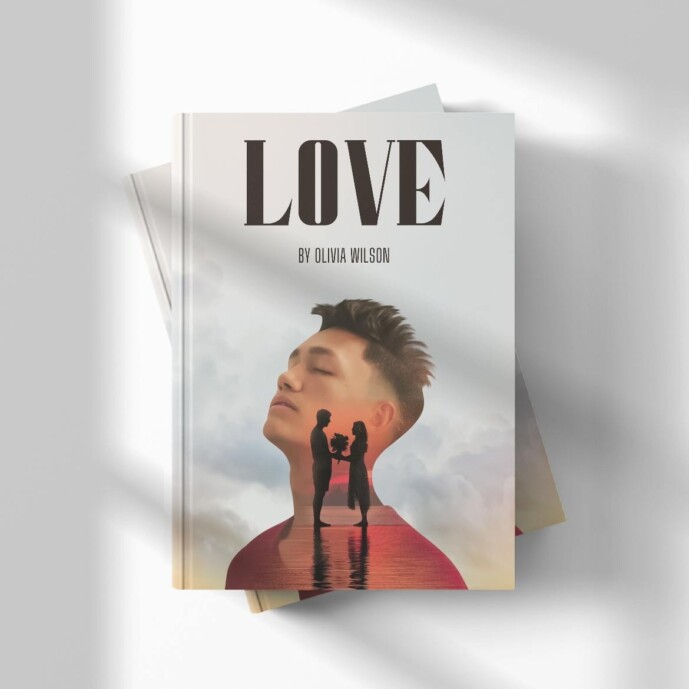
Moonlight Serif Font
Designer: overlaytemplate
Moonlight Serif Font a refined and contemporary serif font that brings a touch of elegance and sophistication to your design projects. Ideal for branding, editorial design, invitations, and more, “Moonlight” shines with its timeless beauty and modern style.
“Moonlight” features meticulously crafted serifs with a perfect balance of classic and contemporary elements. Its clean lines and graceful curves give it a refined look, while its modern proportions ensure readability and versatility. This font includes a full set of uppercase and lowercase letters, numbers, punctuation, and multilingual support, making it suitable to a wide range of applications.
Whether you’re designing luxurious invitations, sophisticated branding materials, chic editorials, or stylish websites, “Moonlight” elevates your work with exquisite detail and modern appeal. Its sleek design makes it a great choice for projects that require a sleek, professional appearance.